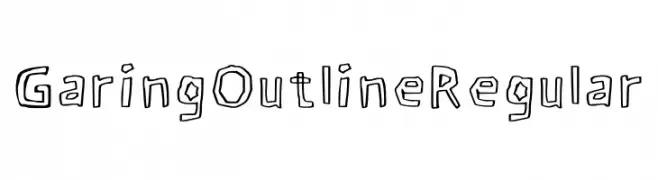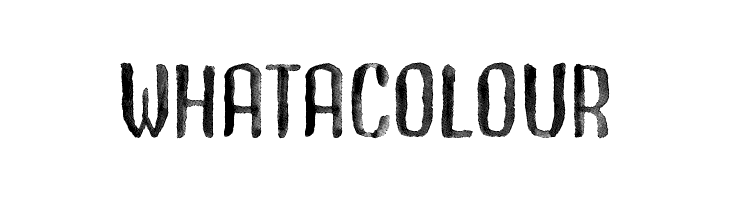
A bold, geometric font with a modern and futuristic style.
A cursive script font with elegant loops and swirls, perfect for sophisticated designs.
A sophisticated, slanted script font with elegant loops and flourishes.
A lively and expressive brush script font with dynamic strokes and a hand-lettered feel.
An elegant script font with flowing, ornate letterforms and intricate swashes.
A dynamic brush-style font with energetic, hand-painted strokes.
A bold, dynamic script font with sweeping curves and high contrast, ideal for vintage or retro designs.
An elegant script font with flowing, decorative cursive letterforms.
A graceful and elegant script font with flowing, interconnected characters.
A flowing, handwritten script font with elegant, connected strokes.
A bold, playful font with thick, rounded strokes and a hand-drawn feel.
A lively, cursive font with smooth, flowing strokes and a handwritten style.
A bold, flowing script font with elegant, fluid strokes.
A bold and expressive script font with dynamic and playful letterforms.
A bold, expressive script font with dynamic, flowing letterforms.
A slanted, flowing script font with elegant, connected strokes.
A fluid, elegant handwritten font with a sophisticated and creative style.
An elegant script font with flowing, interconnected letters and delicate flourishes.
A dynamic, handwritten-style font with bold, playful characters.
A bold, comic book-style font with a playful, hand-drawn appearance.
A bold, textured font with a hand-drawn, sketch-like appearance.
A bold, geometric font with a modern, industrial style.
A bold, handwritten font with a dynamic, brush-like texture.
A bold, edgy font with sharp, angular lines and a hand-drawn quality.
A pixelated, geometric font with a retro digital aesthetic.
An ornate and decorative serif font with intricate detailing.
A sketch-like, hand-drawn font with artistic and informal characteristics.
A bold slab serif font with strong, rounded edges and a classic yet modern appeal.
( Fedency Creations )
( Fausto Furioso - instagram.com/fausto.jpg )
A bold, playful font with a Western-inspired, handcrafted look.
( Fatia Herman )
A playful, bold, and hand-drawn style font with rounded edges.
( FatFactory - Mico Samardzija )
A modern geometric font with high contrast and stylish, elongated forms.
A whimsical, decorative font with curly, swirly elements and playful character designs.
A bold, narrow font with a modern and elegant style.
A decorative script font with elegant loops and swashes.